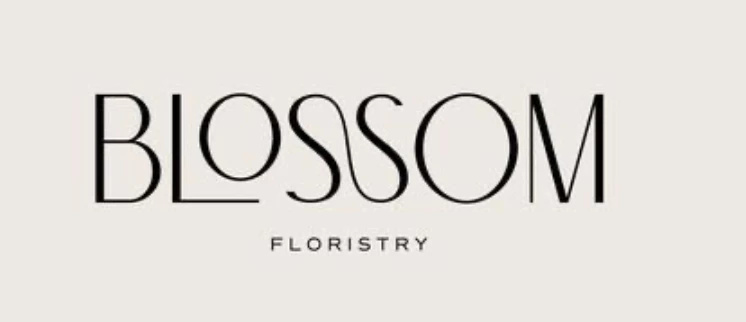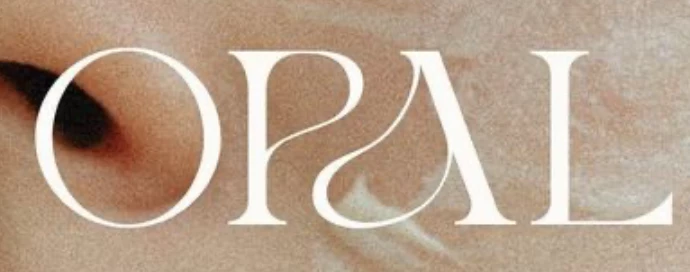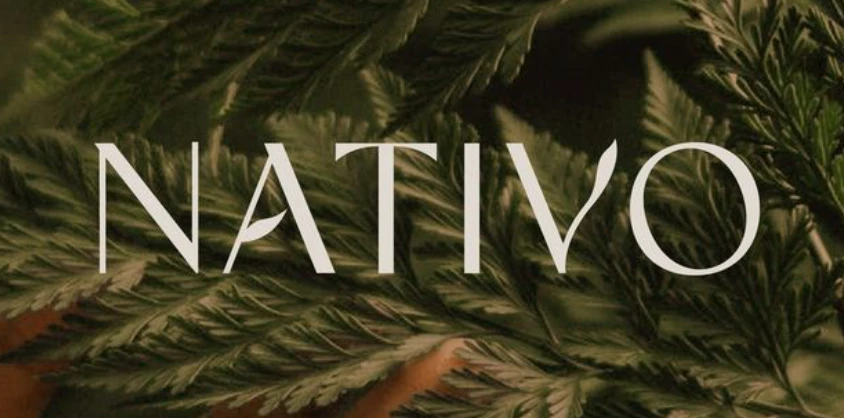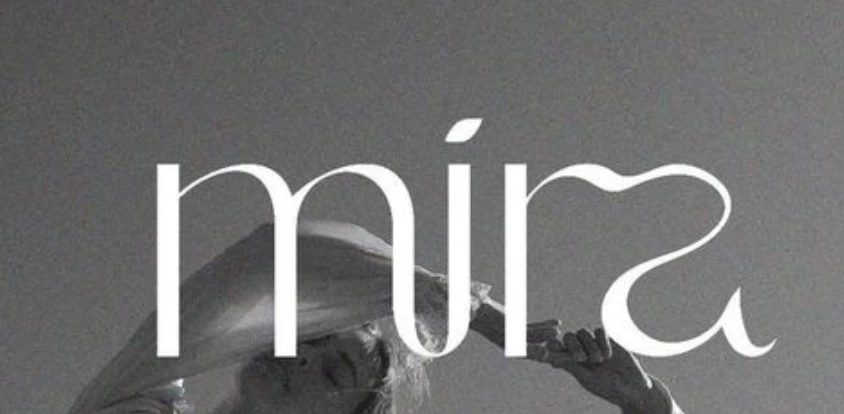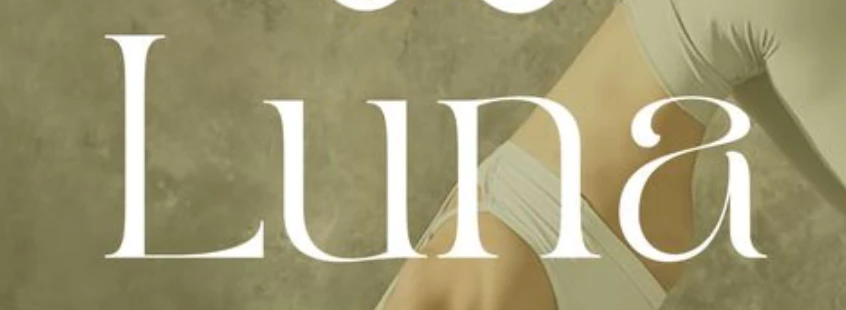
modern fonts like for hair / beauty / spa
Hello everyone, I'd like to understand if in the "adobe fonts" I can find anything like the ones in the pictures...
I don't know if I'm doing something wrong when I search for a new one...
Are you trying to match the typefaces shown in the images you posted, or are you searching for something that visually feels similar? If the latter is the case you can browse fonts at the Adobe Fonts site by style tags, such as "Luxury" and find fonts with the same kind of vibe. It's going to be more difficult to get exact matches of fonts. The Adobe Fonts site has over 4000 type families, but there are many other typefaces not carried at Adobe Fonts.